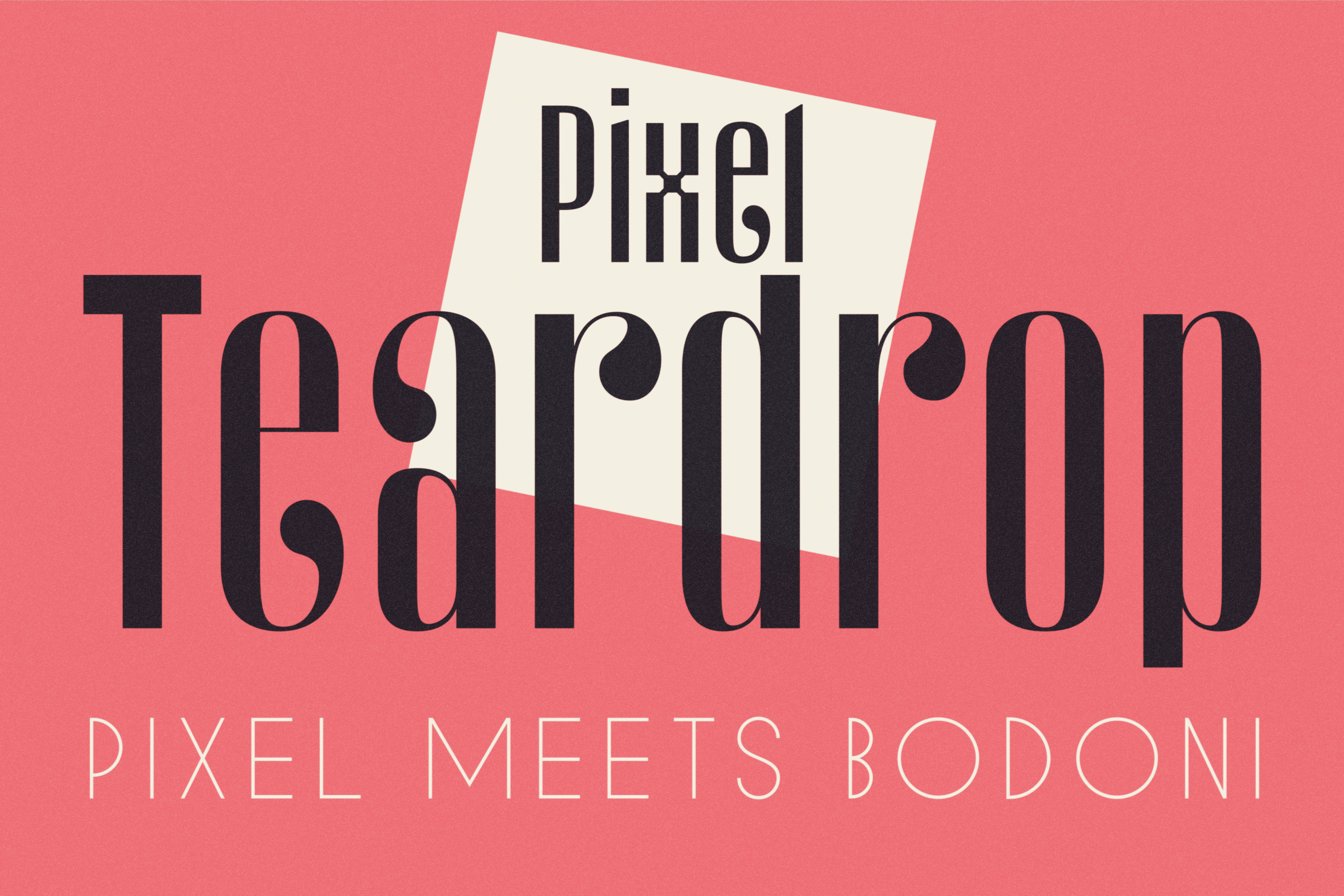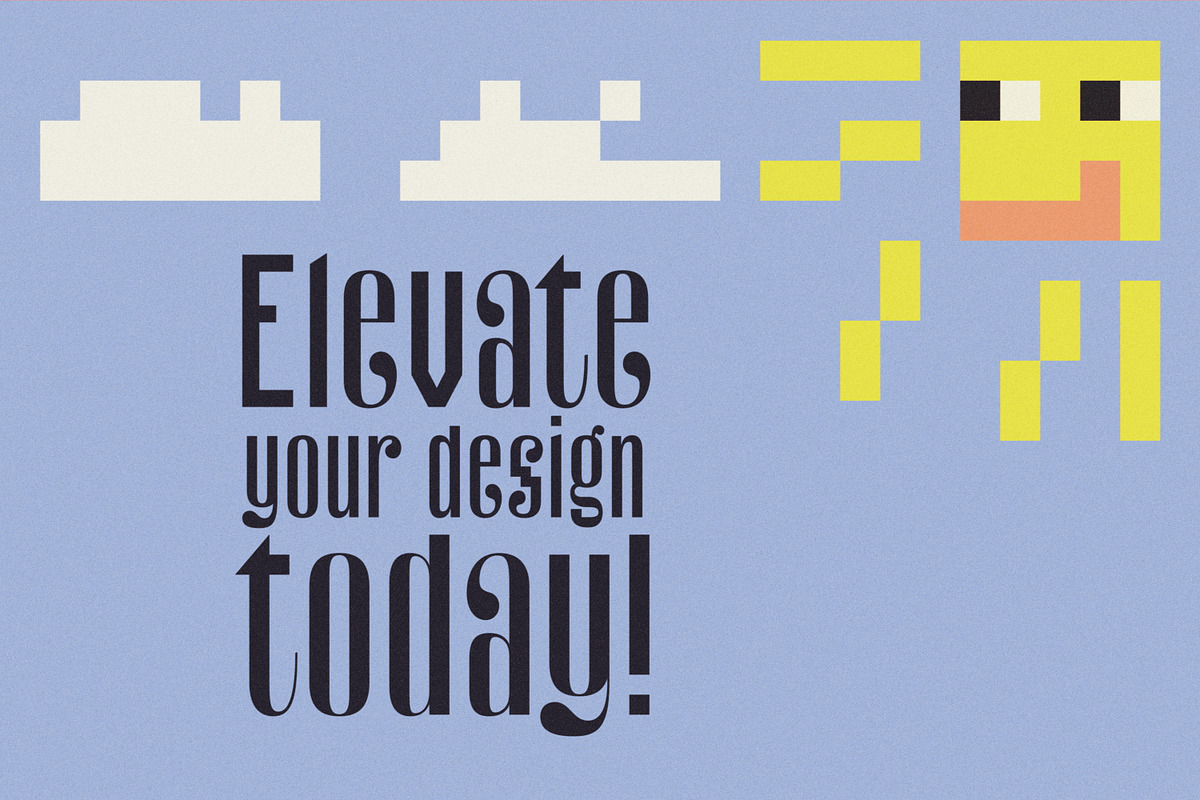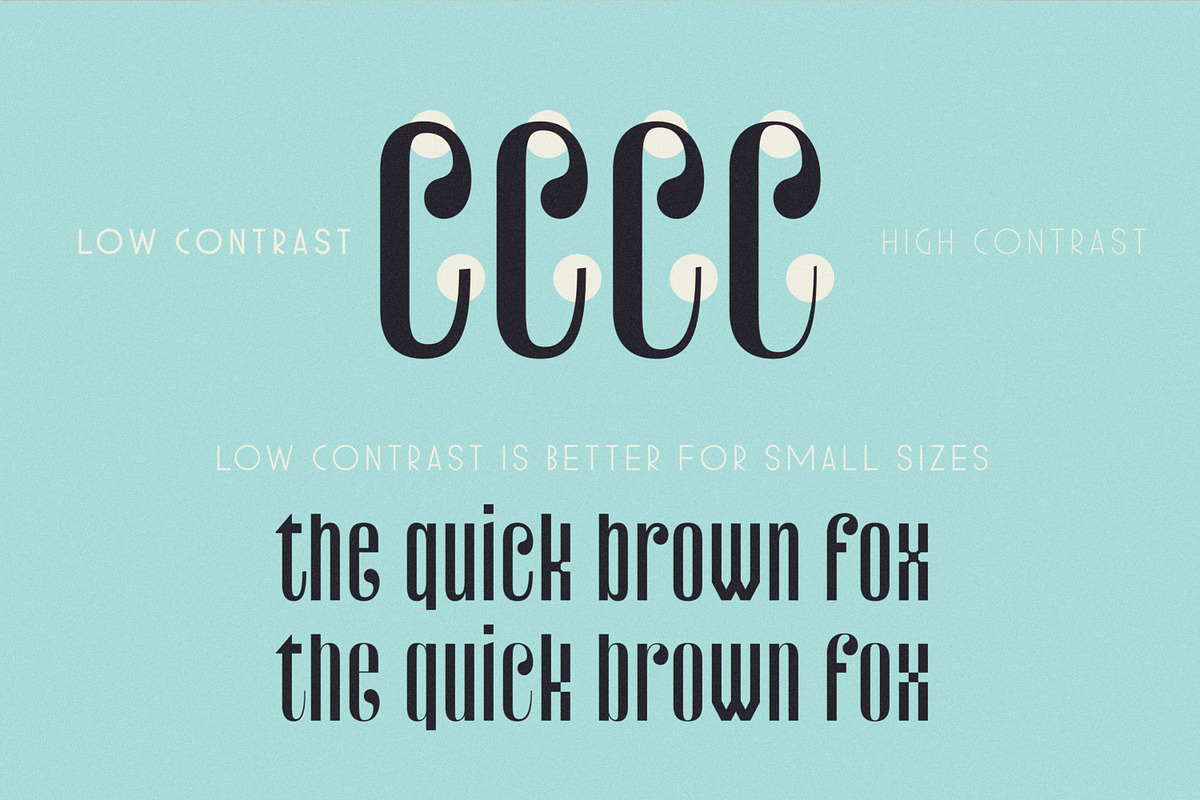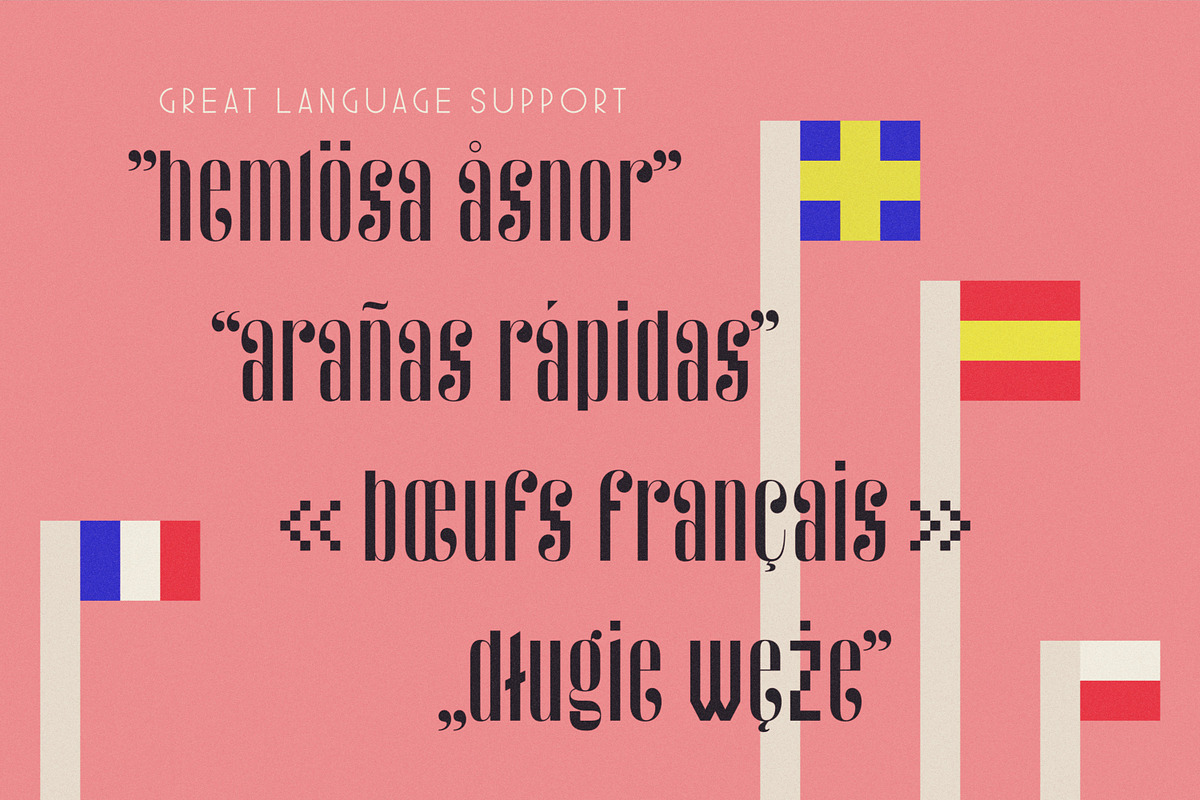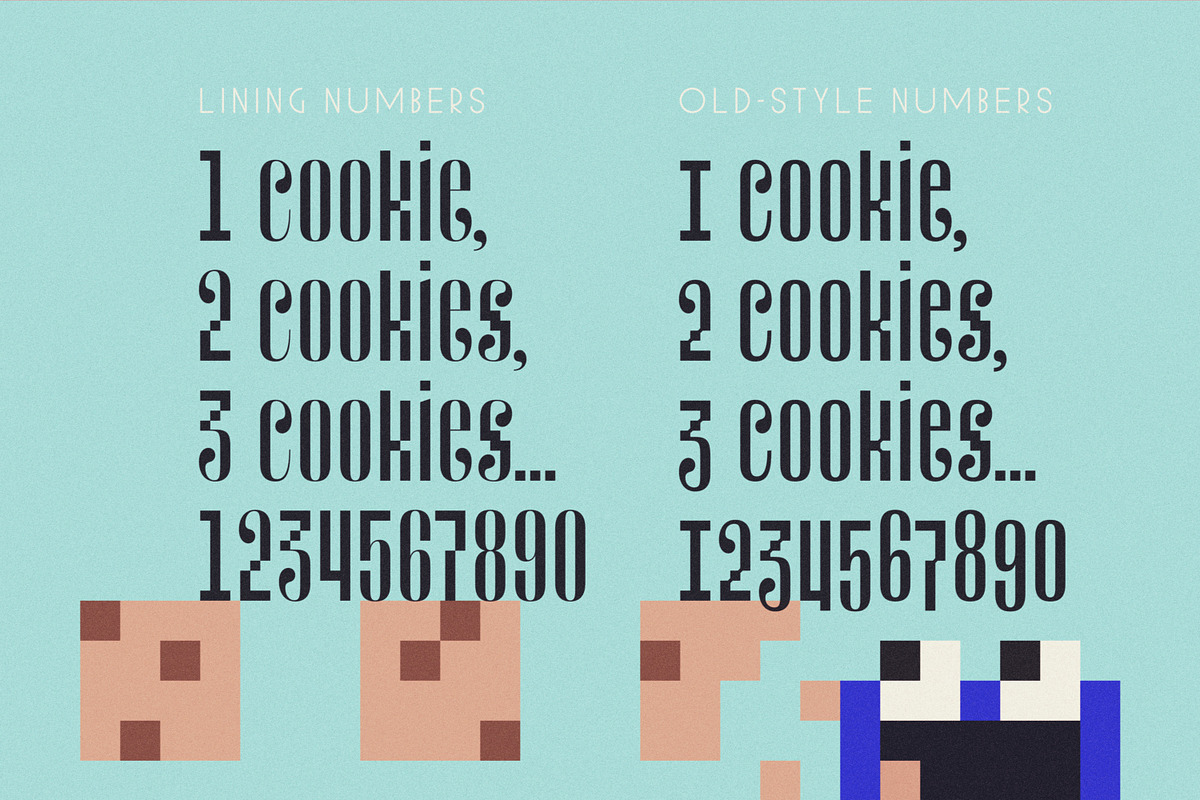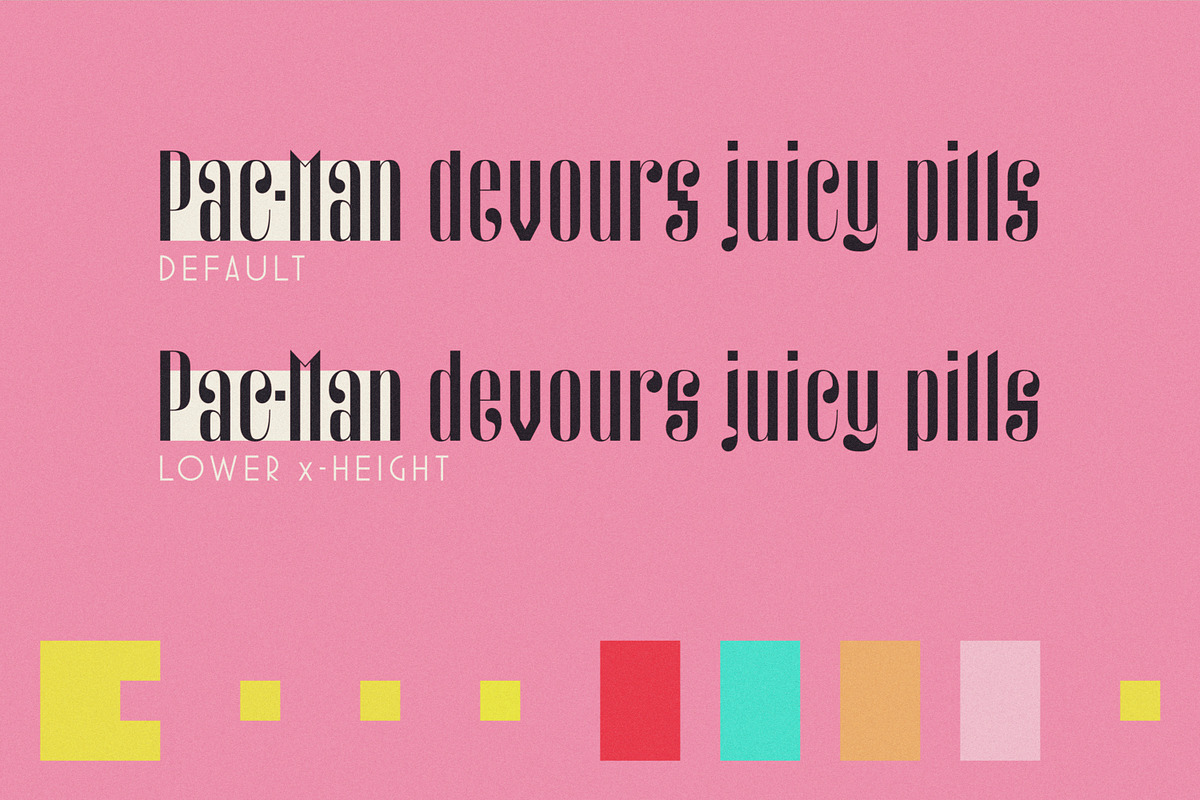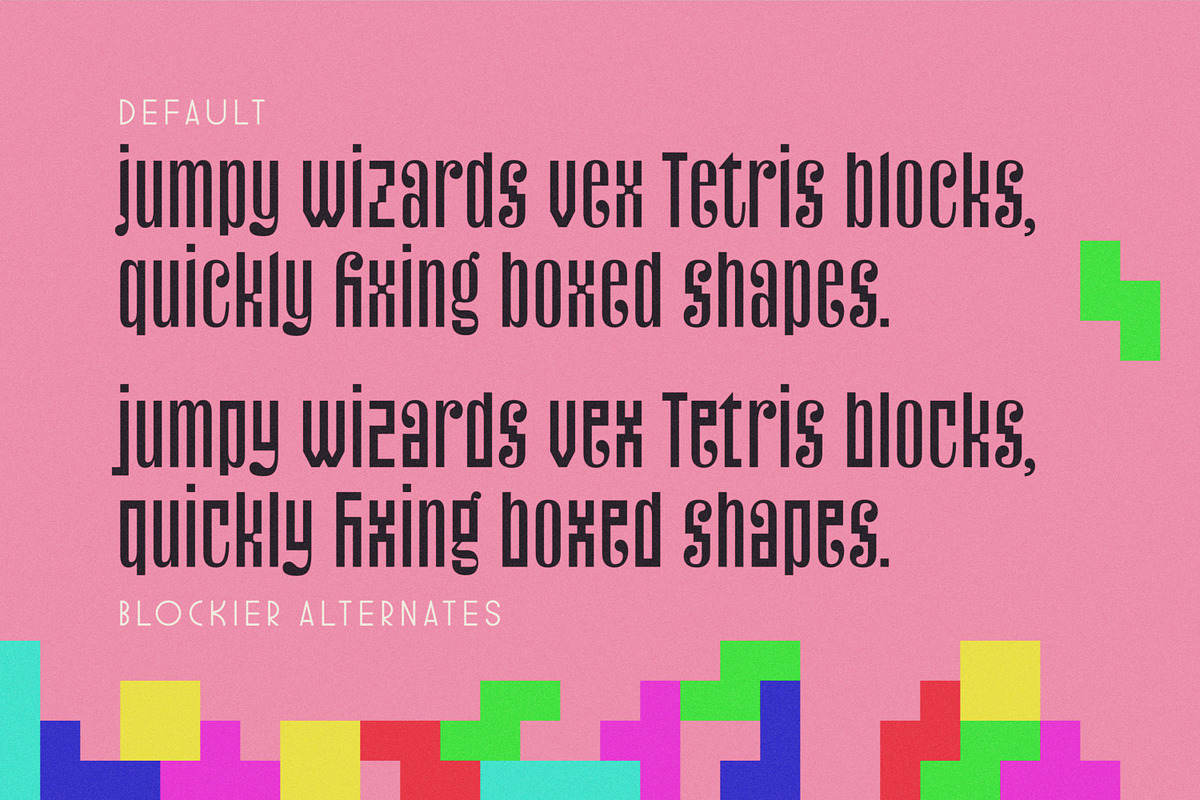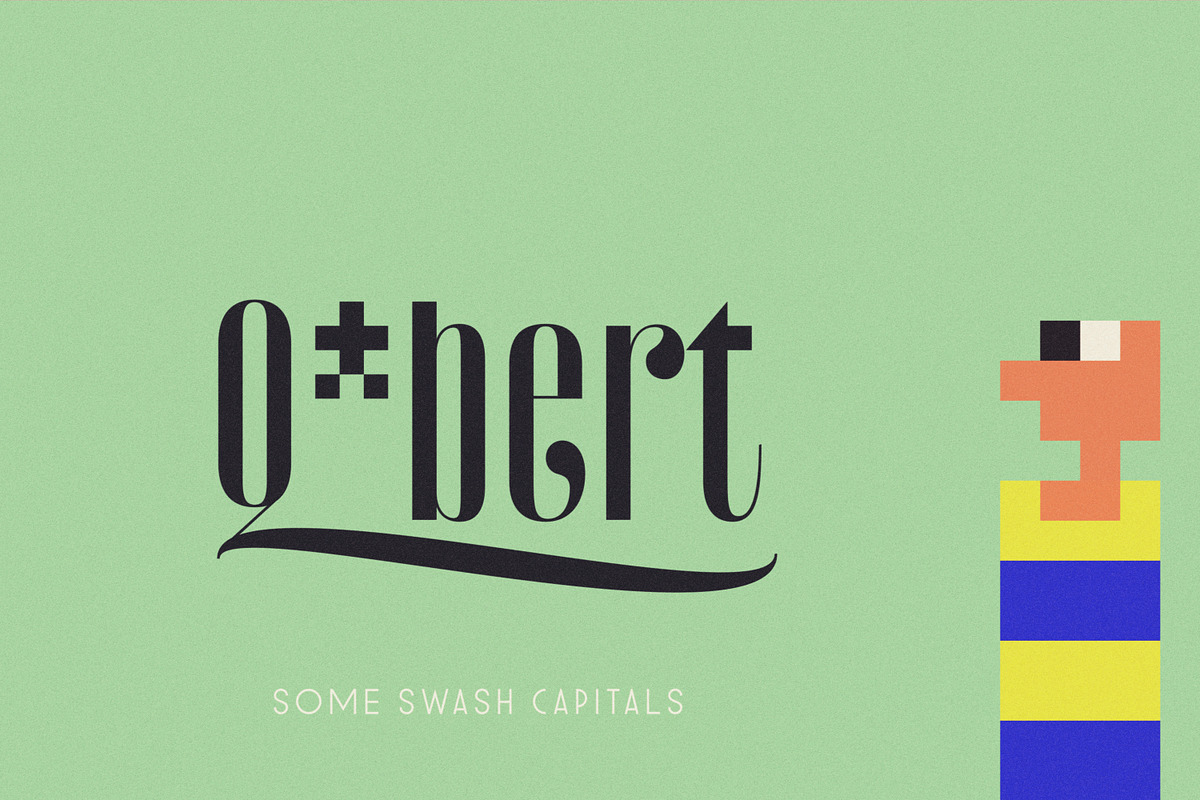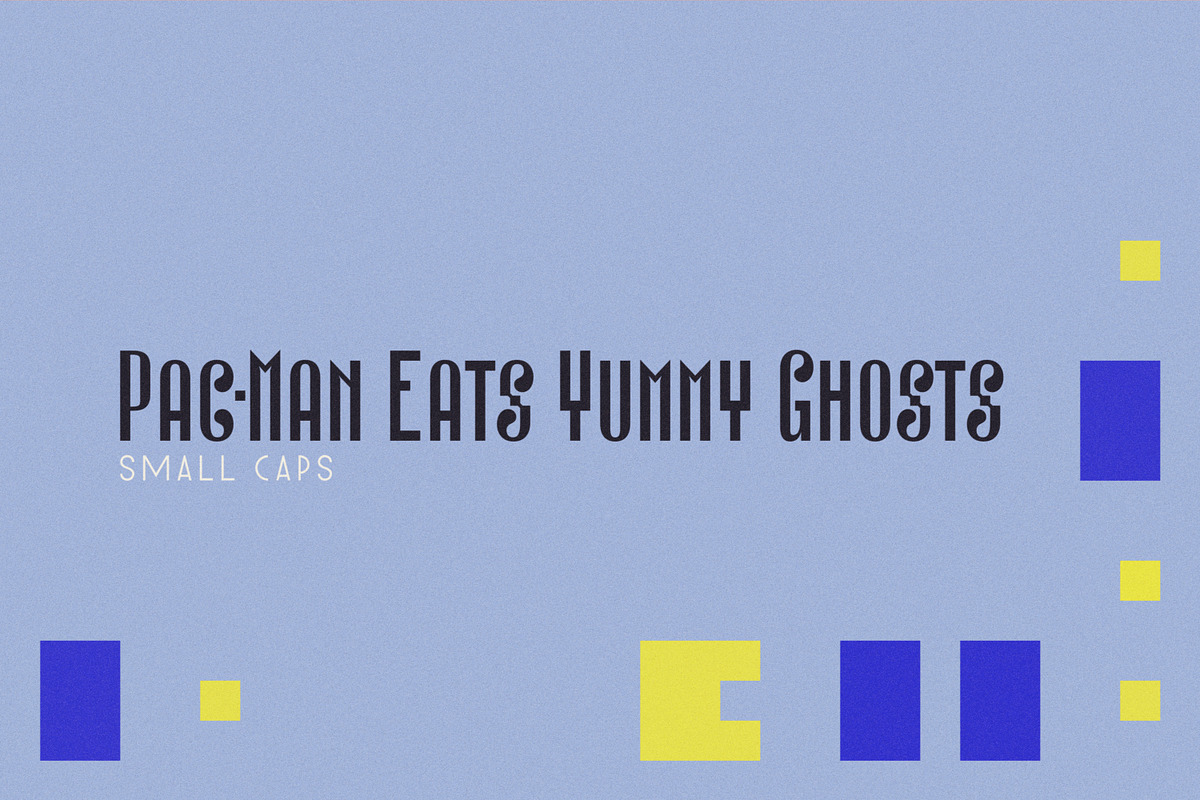
Pixel Teardrop - Display Font
Pixel Teardrop display font blends the retro vibe of pixel fonts with calligraphic teardrop terminals. It comes in four different levels of contrast, which makes it work great both large and small sizes.